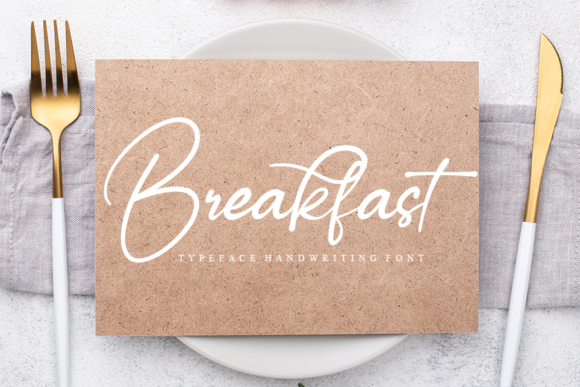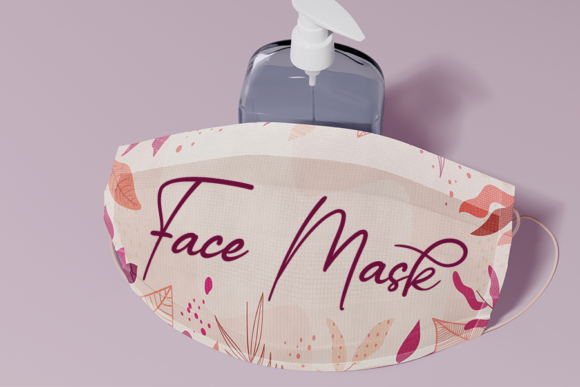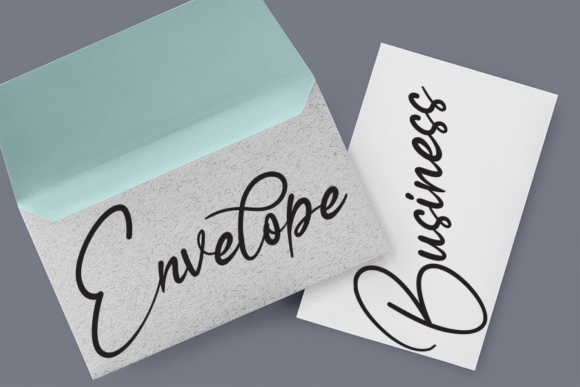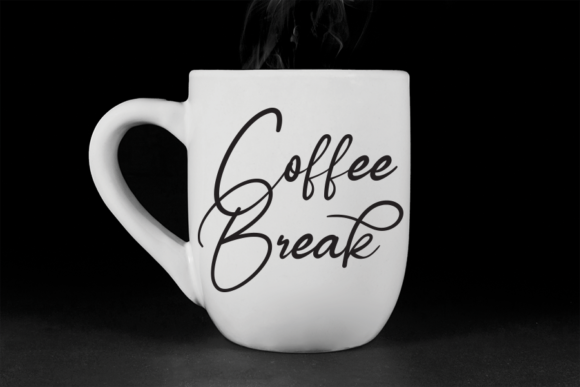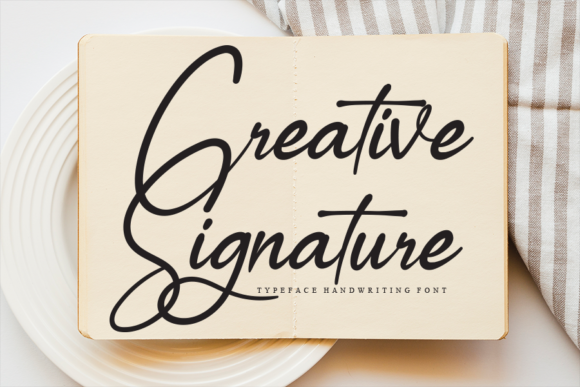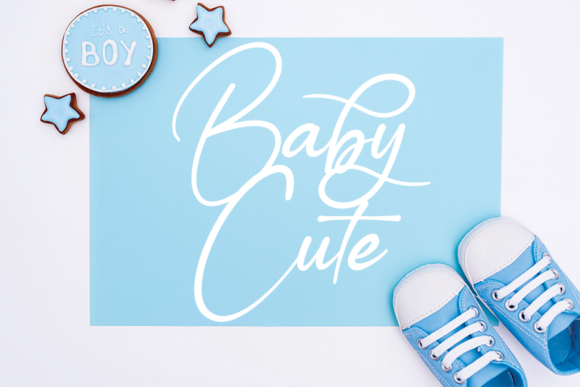
As designers, we’ve all been there – staring at a blank canvas, searching for the perfect font to bring our creative vision to life. It’s in these moments of uncertainty that we discover the magic of Butterfly Font. This stylish and elegant script font has the power to transform even the simplest of designs into a work of art.
Built for versatility, the Butterfly Font is perfect for wedding invitations, thank you cards, quotes, greeting cards, logos, business cards, and any other design that requires a handwritten touch. Its unique charm makes it a valuable asset for designers looking to add a touch of whimsy and personality to their work.
Key Features of Butterfly Font
- Unique Characteristics: Butterfly Font features a unique, whimsical design with flowing curves and delicate flourishes, making it perfect for creating eye-catching headings and titles.
Butterfly Font Review
Overall, I think the Butterfly Font has some great qualities, but it also has some limitations that make it less desirable for certain projects.
- Unique and whimsical design: The Butterfly Font has a distinctive, hand-drawn feel that can add a touch of elegance and sophistication to a design.
- Customization options: The font offers a range of customization options, including different weights and sizes, which can be helpful for achieving a specific look or feel.
- Legibility: Despite its ornate design, the Butterfly Font is still relatively easy to read, making it suitable for body text or headings.
- Limited versatility: The Butterfly Font’s whimsical design may not be suitable for all types of projects, particularly those that require a more formal or serious tone.
- Difficulty with text manipulation: The font’s intricate design can make it challenging to manipulate text, such as changing font sizes or colors, without affecting the overall aesthetic.
- Overuse risk: The Butterfly Font’s unique design may lead to overuse, which can result in a lack of visual interest and a sense of visual fatigue.
The Butterfly Font is a beautiful and unique font that can add a touch of elegance and sophistication to a design. However, its limitations and potential for overuse should be carefully considered before choosing it for a project. With careful use and consideration, the Butterfly Font can be a valuable addition to a designer’s toolkit.
To get the most out of the Butterfly Font, try the following:
- Use it for titles and headings to add a touch of whimsy.
- Pair it with bold fonts for a striking contrast.
The Butterfly Font is perfect for:
- Children’s book illustrations and design.
- Quirky marketing materials and social media graphics.
Alternatives to Butterfly Font
Great Vibes is a beautiful, elegant script font ideal for headings, titles, and quotes. It features flowing connections and organic shapes, making it perfect for creative and artistic projects. Compared to Butterfly Font, Great Vibes is more refined and sophisticated, with a more classical feel.
Pacifico is a stylish, modern script font with a relaxed, beachy vibe. It’s great for branding, packaging, and other design elements where a casual, approachable feel is desired. While Butterfly Font has a more whimsical feel, Pacifico is more laid-back and easy-going.